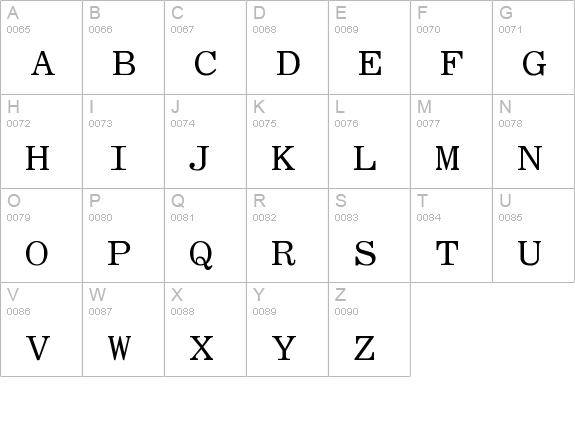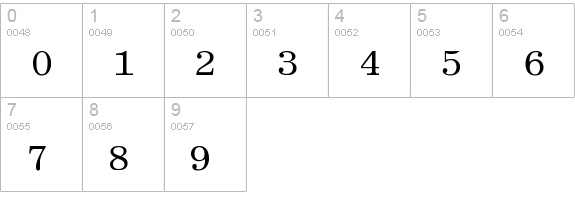
Asphalt Fixed Font Details
Asphalt Fixed font is a modern and sleek typeface designed for a professional and clean look. Its sharp edges and geometric shapes give it a contemporary feel, perfect for tech-related projects, branding, and editorial design. Whether you're working on a website, app interface, or print materials, Asphalt Fixed font will add a touch of sophistication to your work. The best part about Asphalt Fixed font is that it is completely free to download at FontsMarket.com. This means you can use this high-quality typeface without any cost, making it a valuable resource for designers and creatives looking to elevate their projects. Don't miss out on the opportunity to enhance your designs with Asphalt Fixed font, available for free at FontsMarket.com.